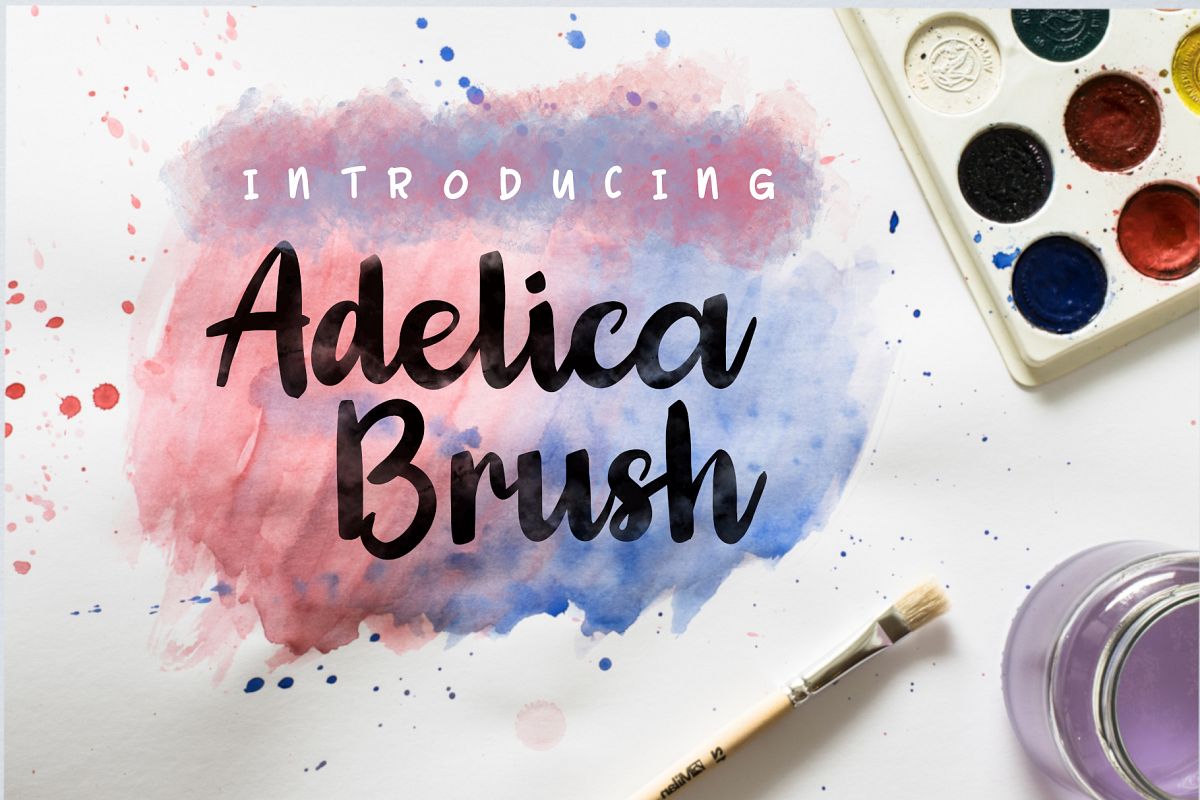
Adelica Brush font that made with a handwritten brush. This font is perfect for your project that has taste fun, feminine, childish, and watercolor effect.
Adelica Brush is a solid font, for raises the watercolor effect you must masking it with the watercolor brush or other.
- Uppercase & lowercase
- Numeral & punctuation
- Multilingual support